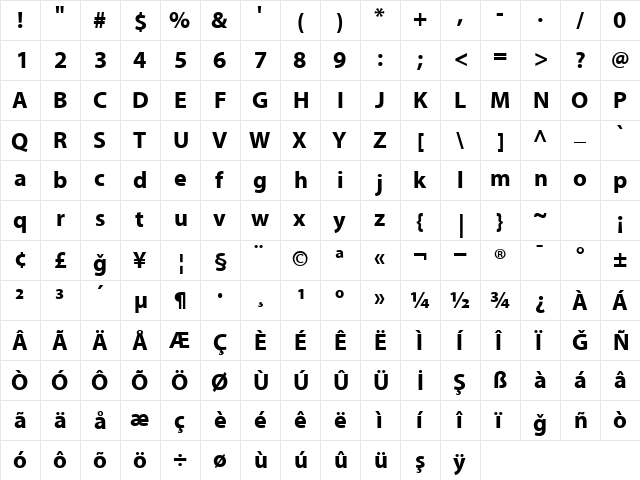
STVMyriad Bold
Design Context for STVMyriad Typeface
STVMyriad takes a measured approach to typography — its balanced proportions and neutral character make it a reliable workhorse for both digital and print work. The heavy weight commands attention and anchors typographic hierarchies.
Pro Tip: Use STVMyriad in both headline and body roles to test its range before committing to a single application.